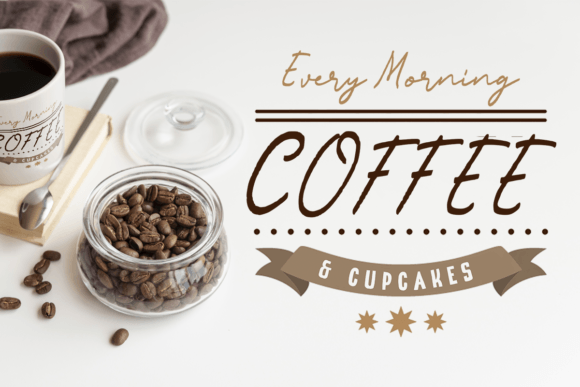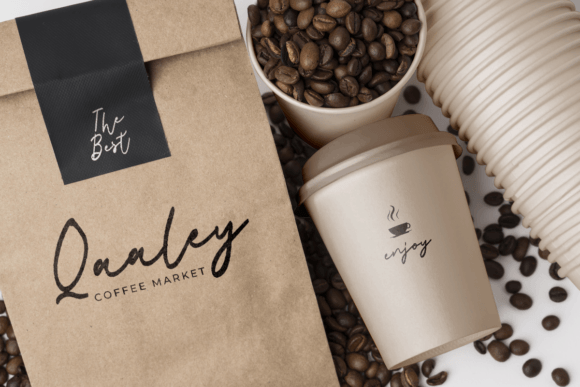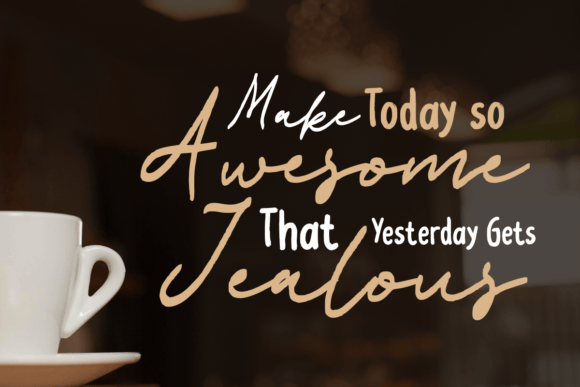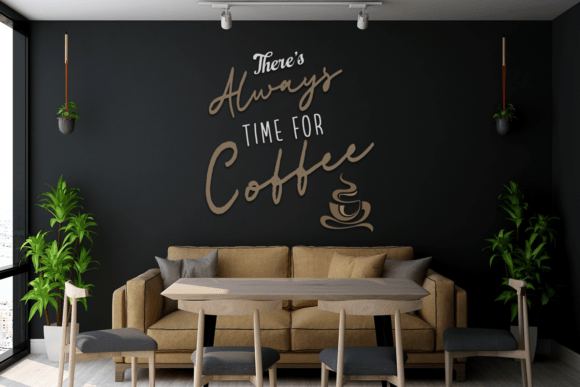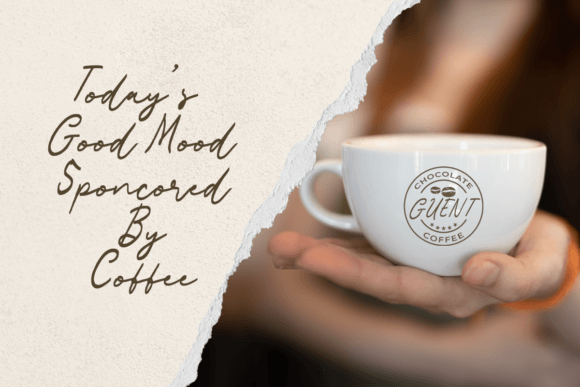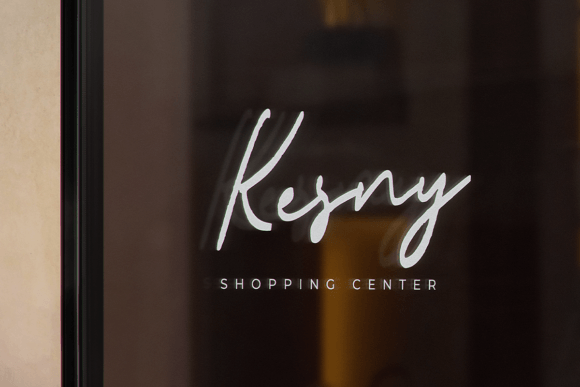
Cafein Font: The Perfect Choice for Designers Who Want to Add a Personal Touch
As a designer, you’re always on the lookout for the perfect font to add a personal touch to your designs. You want something that will make your work stand out, something that will give it a unique and authentic feel. That’s where Cafein font comes in. This beautiful handwritten font is perfect for designers who want to add a touch of personality to their designs, and in this article, we’ll explore why.
What is Cafein Font?
Cafein font is a carefully crafted handwritten font that is designed to give your designs a warm and inviting feel. Its authentic and natural look makes it perfect for use in a variety of design projects, from logos and branding to social media graphics and more. The font’s handwritten style adds a touch of personality and uniqueness that will help your designs stand out from the crowd.
Why Choose Cafein Font?
So, why should you choose Cafein font for your design projects? Here are just a few reasons:
- Authentic and Natural Feel: Cafein font has an authentic and natural feel that will make your designs look like they were written by hand. This is perfect for designers who want to add a personal touch to their work.
- Handwritten Style: The font’s handwritten style adds a touch of personality and uniqueness to your designs. This will help your work stand out and grab the attention of your audience.
- Versatile: Cafein font is versatile and can be used in a variety of design projects, from logos and branding to social media graphics and more.
- Easy to Read: Despite its handwritten style, Cafein font is easy to read and understand. This makes it perfect for use in designs where you want to communicate a message clearly.
Perfect for Food-Related Businesses
Cafein font is particularly well-suited for designers who are working on projects for food-related businesses. Whether you’re designing for a coffee shop, a bakery, or any other type of food-related business, Cafein font is the perfect choice. Its warm and inviting feel will help to create a cozy and welcoming atmosphere that will make your customers feel at home.
How to Use Cafein Font
Using Cafein font in your designs is easy. Here are a few tips to get you started:
- Use it in Logos and Branding: Cafein font is perfect for use in logos and branding. Its unique and authentic feel will help to create a memorable brand identity.
- Add it to Social Media Graphics: Cafein font is also great for use in social media graphics. Its handwritten style will add a touch of personality to your posts and help them stand out.
- Use it in Advertising Materials: Cafein font can also be used in advertising materials, such as flyers, brochures, and posters. Its warm and inviting feel will help to grab the attention of your audience.
In conclusion, Cafein font is the perfect choice for designers who want to add a personal touch to their designs. Its authentic and natural feel, combined with its handwritten style, make it perfect for use in a variety of design projects. Whether you’re designing for a coffee shop, a bakery, or any other food-related business, Cafein font is the perfect choice for creating a warm and inviting feel. So why not give it a try and see the difference it can make in your designs?
Key Features of Cafein Font
| Authentic and Natural Feel | Cafein font has an authentic and natural look that will make your designs look like they were written by hand. |
| Handwritten Style | The font’s handwritten style adds a touch of personality and uniqueness to your designs. |
| Versatile | Cafein font can be used in a variety of design projects, from logos and branding to social media graphics and more. |
| Easy to Read | Despite its handwritten style, Cafein font is easy to read and understand. |